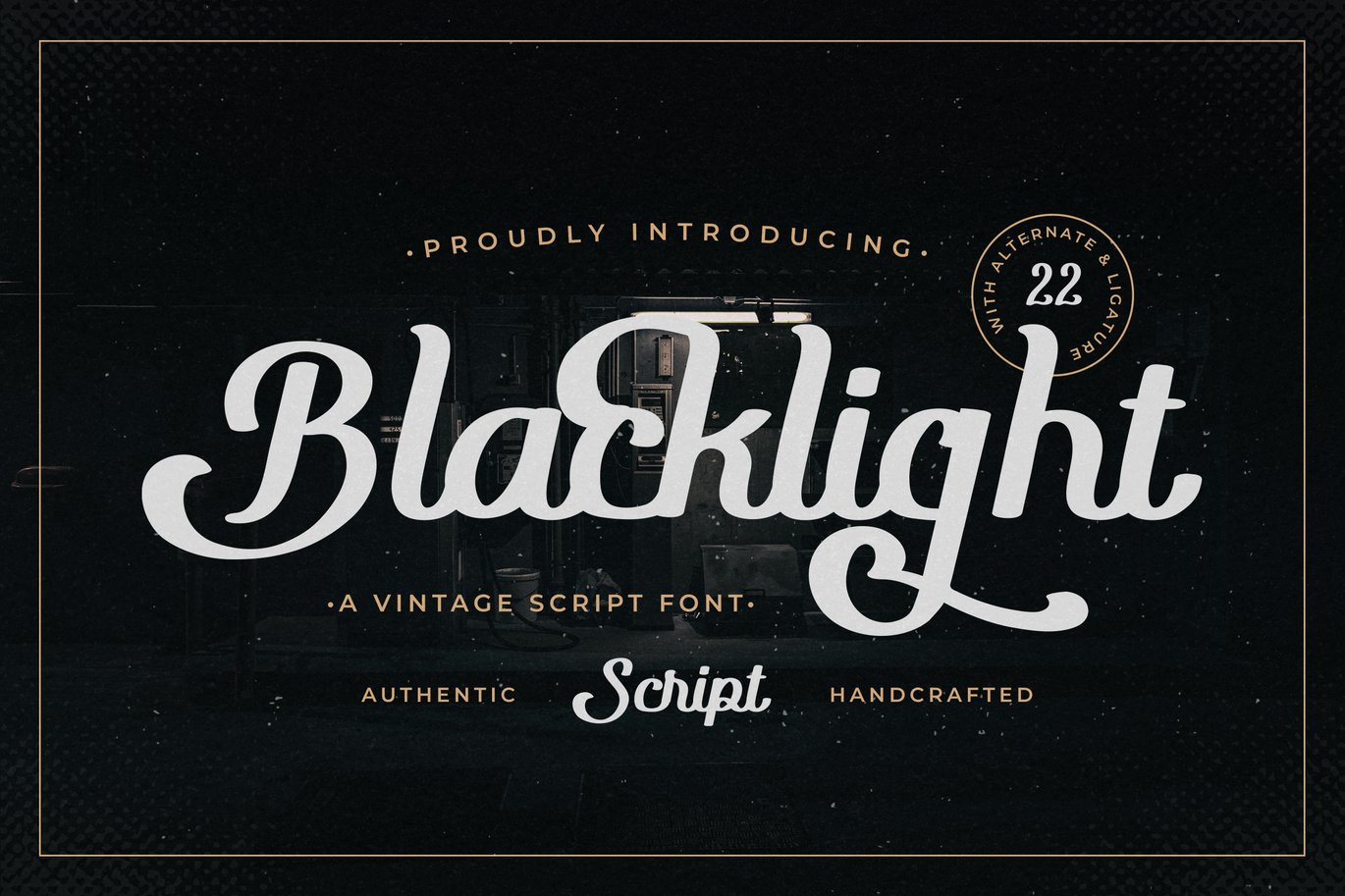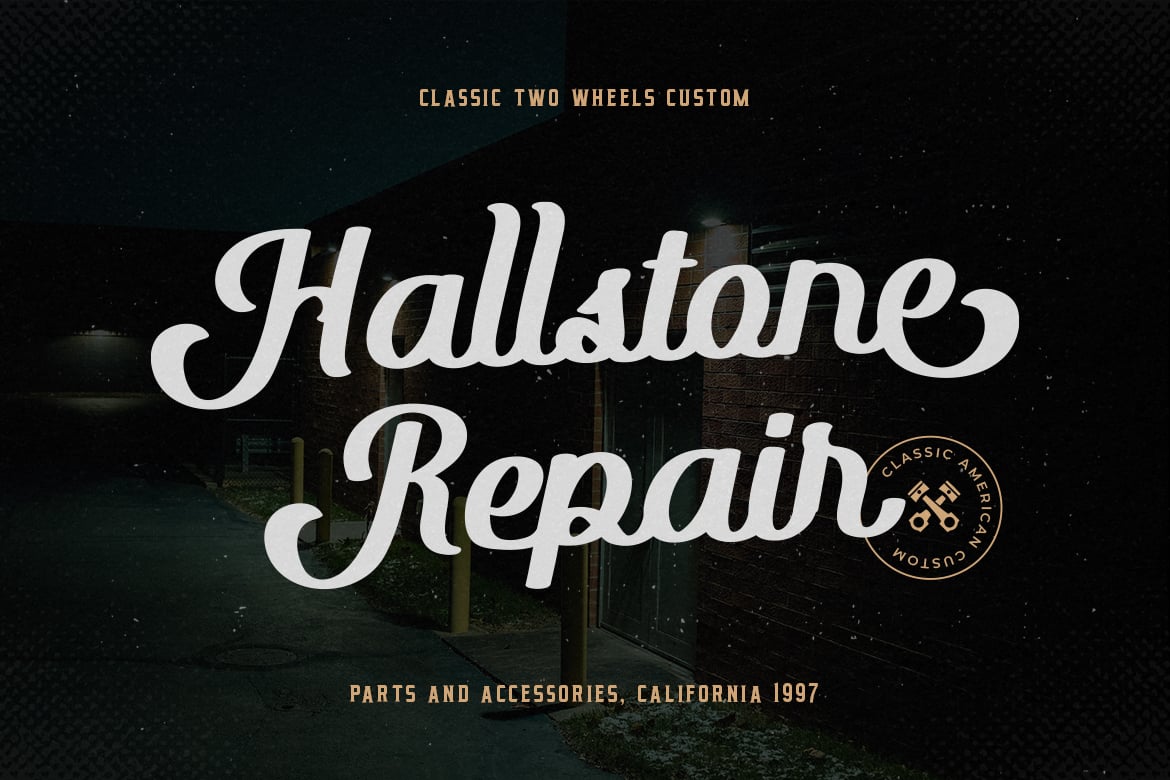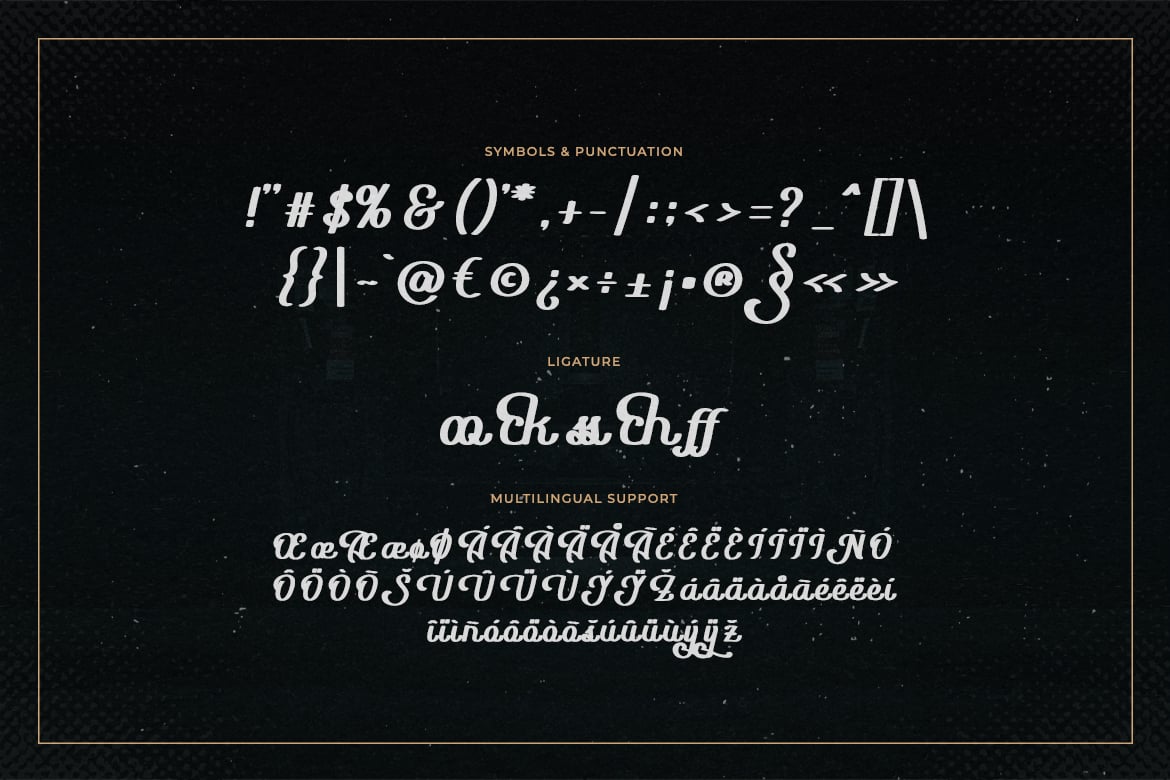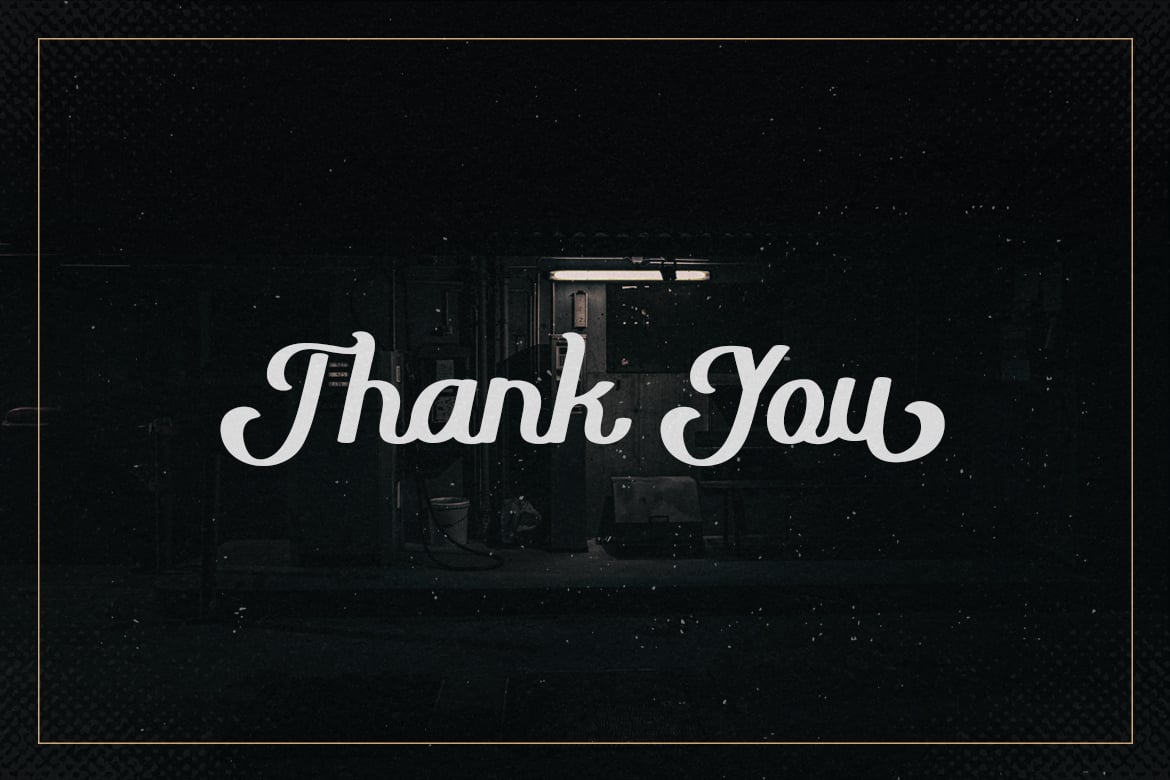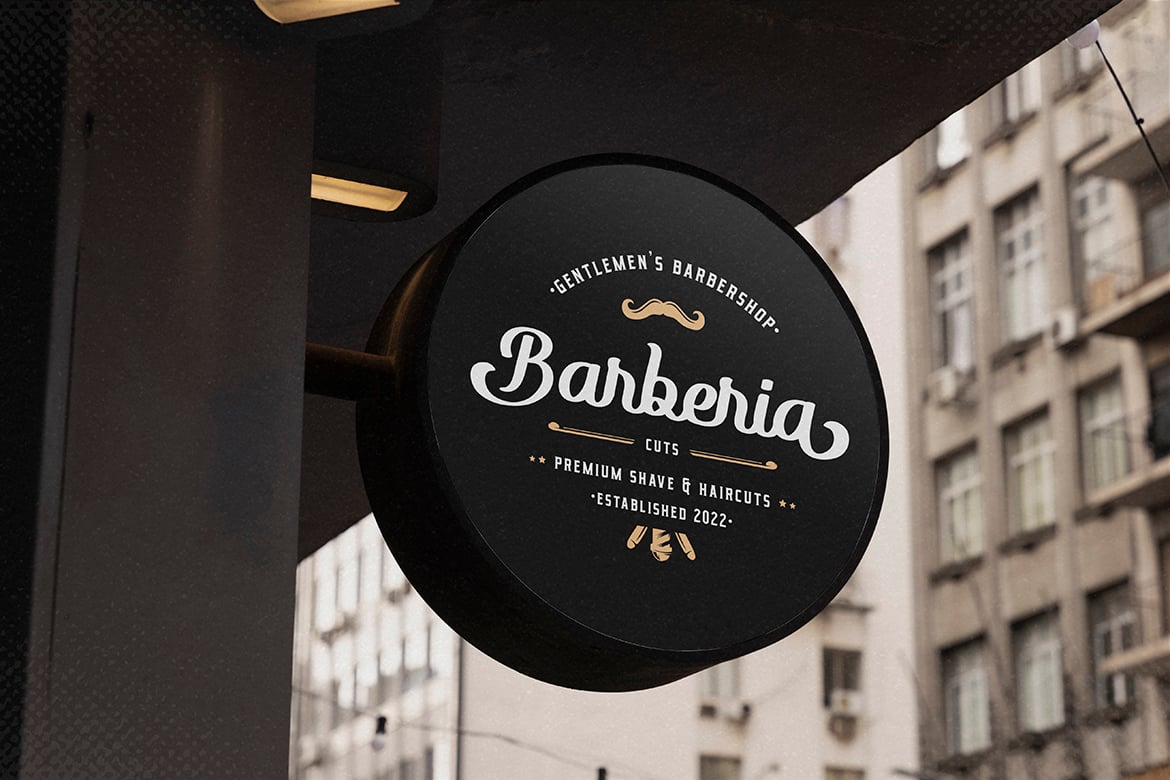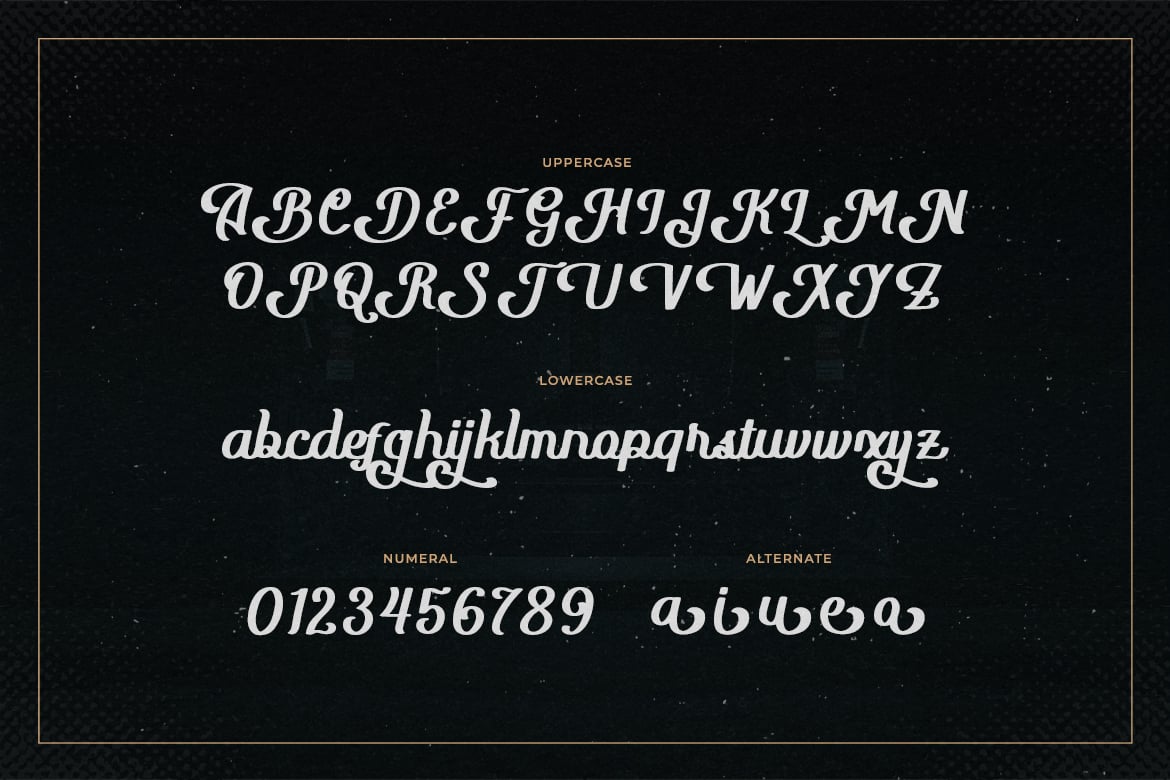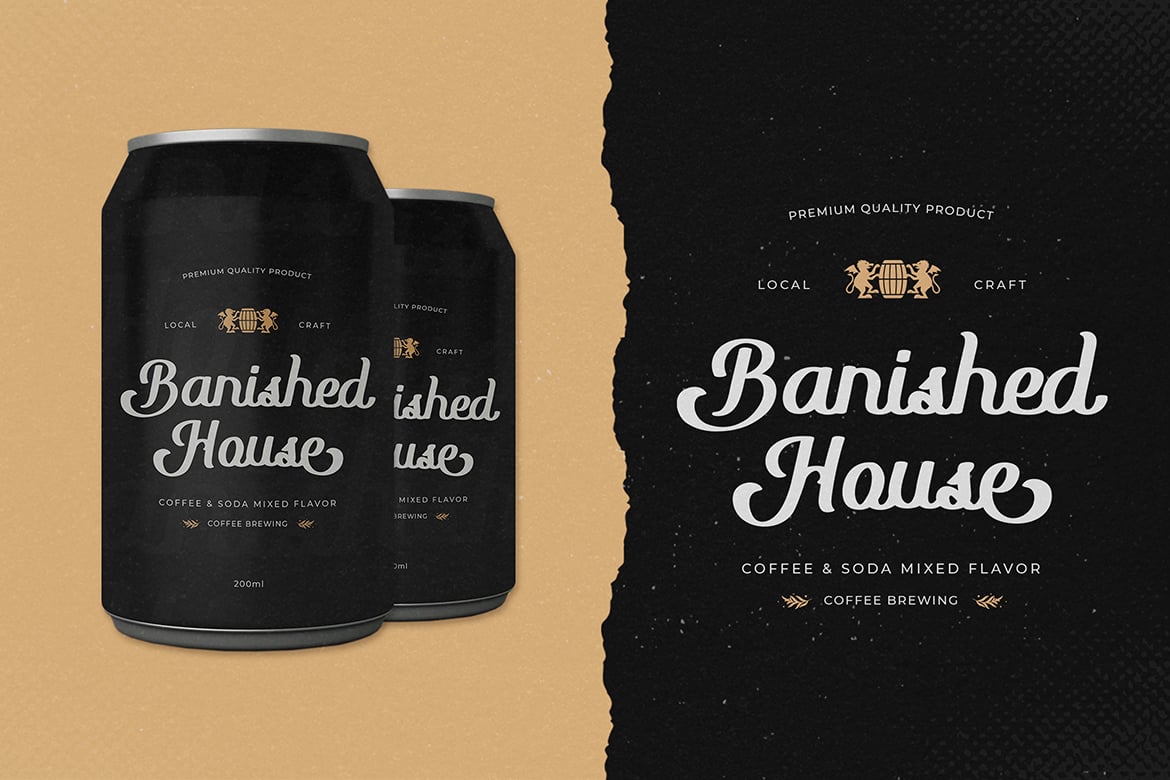
Blacklight – A Vintage Script Font
Blacklight is a vintage script font.
It can be used for various purposes such as logos, headings, coffee shop, vintage restaurant, letterhead, signage, labels, news, posters, badges and so much more.